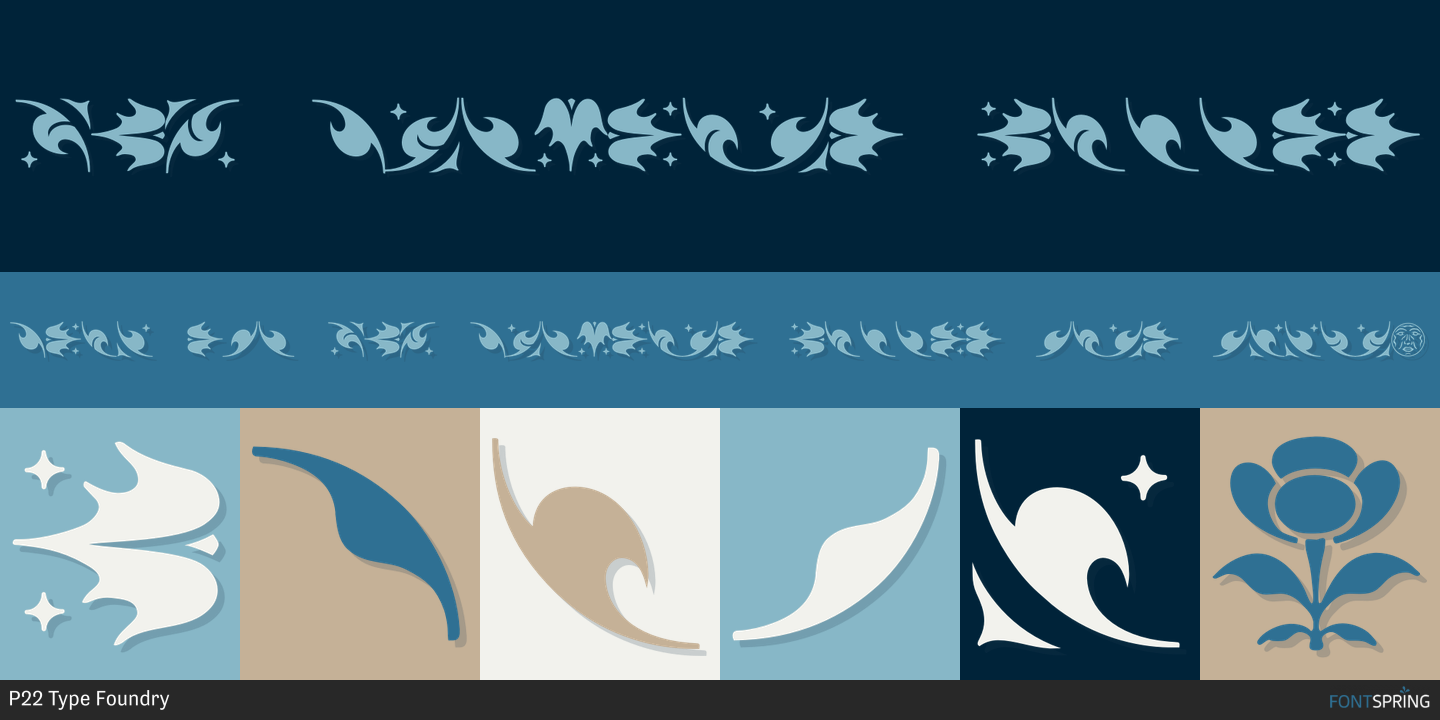
Designed by Bruce Rogers, LTC Fleurons Rogers is a dingbat font published by P22 Type Foundry.
Bruce Rogers is famous for designing with Lanston Monotype ornaments but he also designed many of the ornaments himself. The 80 ornaments found in this collection can be arranged in a wide variety of patterns for striking borders in the style of Bruce Rogers or endless other decorative combinations. Characters are spaced evenly so fleurons can be easily joined together, even in word processing programs.